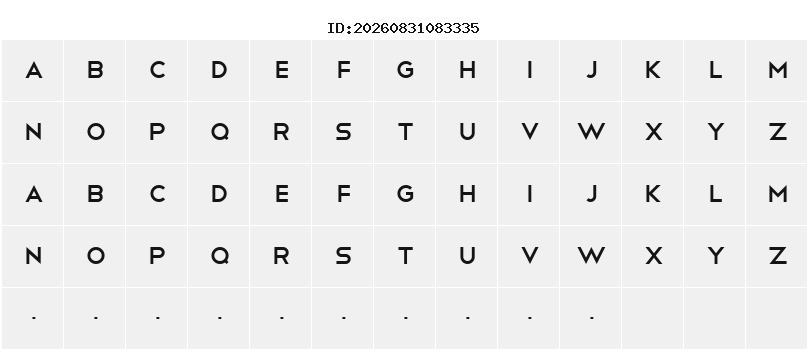
• Font Name: Telegrafico
• Designer: Salvo Nicolosi
• Description: Carattere ispirato al razionalismo italiano. Disegnato sul modello di caratteri visti talmente dappertutto da non ricordare esattamente dove; soprattutto nella scritta "Poste e telegrafi", da cui il nome. Un carattere molto simile (direi che è una versione "extended") è presente sotto forma di bellissimi caratteri "solidi" sullla facciata del palazzo delle poste di Napoli.
Telegrafico.ttf is a modern, elegant sans-serif font designed for ultimate readability and visual harmony. Perfect for branding, headlines, web design, and print materials.